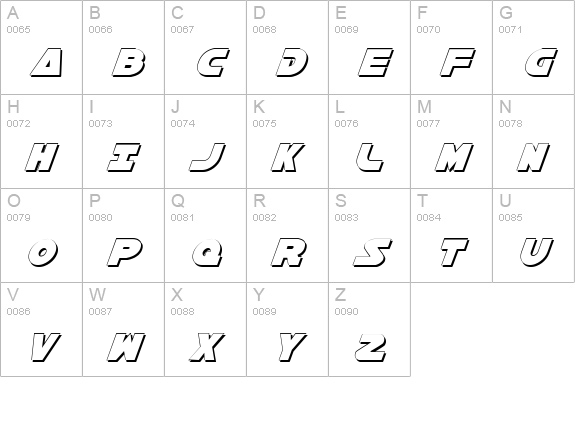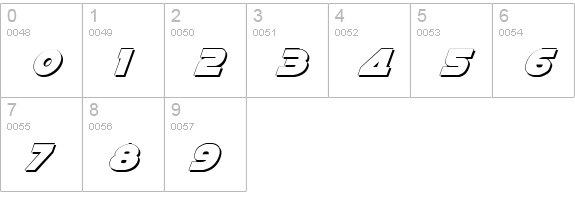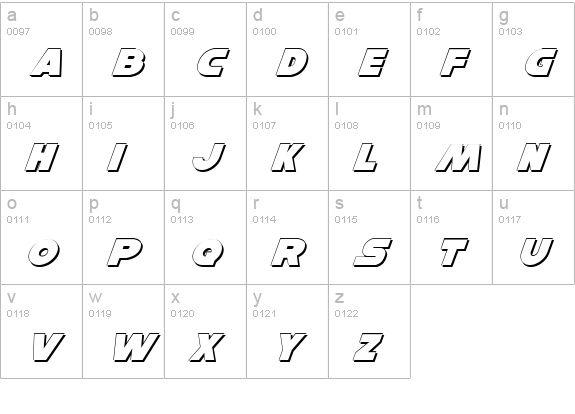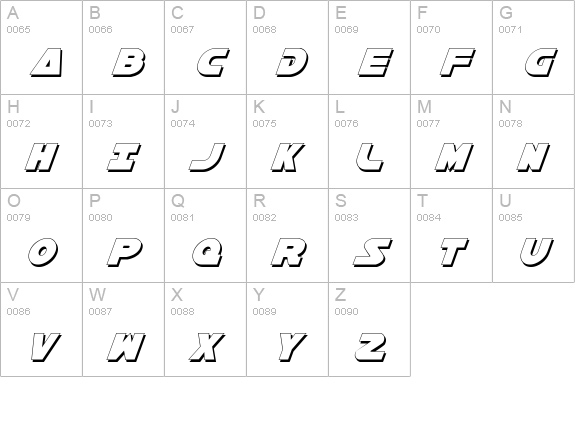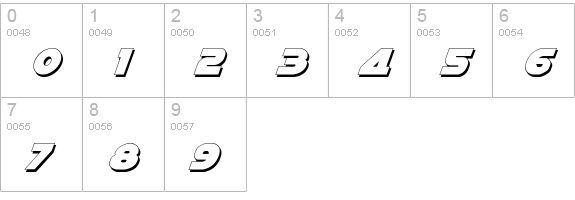
Han Solo Shadow Italic Font Details
Han Solo Shadow Italic is a distinctive, italic variant in the Han typeface family \xE2\x80\x94 well suited to design and typography projects.
Introducing Han Solo Shadow Italic, a captivating and enigmatic font that effortlessly captures the essence of Han Solo's adventurous spirit. Designed with a touch of shadow and a hint of italics, this typeface exudes a sense of mystery and intrigue, perfect for projects that require an edgy and daring touch. Han Solo Shadow Italic is bold and confident, just like the legendary smuggler himself. Its sleek lines and distinctive curves add a sense of dynamism and style to any design, making it the perfect choice for logos, movie posters, book covers, and more. Whether you're creating a tribute to the Star Wars universe or simply adding a touch of excitement to your next project, this font is sure to impress. What makes Han Solo Shadow Italic even more enticing is that it is available for free download at FontsMarket.com. That's right, you can now access this incredible font without having to spend a single credit. FontsMarket.com offers a vast collection of fonts, and Han Solo Shadow Italic is just one of the many hidden gems waiting for you to discover. With its free availability, you can enhance your designs without breaking the bank. Don't miss out on this opportunity to add a touch of Han Solo's unmistakable charisma to your creations. Download Han Solo Shadow Italic today, and let your imagination soar to new heights. Whether you're a professional designer or a Star Wars enthusiast, this font will undoubtedly leave a lasting impression. FontsMarket.com is your go-to destination for remarkable fonts that are both visually stunning and freely accessible.